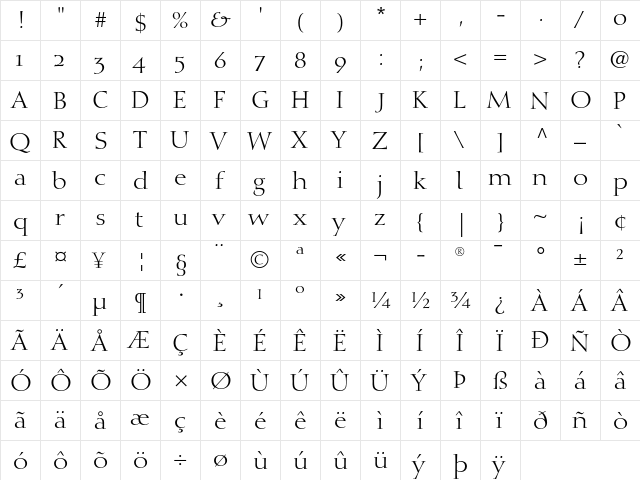
Diotima OsF
Design Context for Diotima Typeface
Diotima offers clean, dependable letterforms without strong stylistic allegiance, making it a practical choice for designers who need flexibility.
Pro Tip: Use Diotima in both headline and body roles to test its range before committing to a single application.